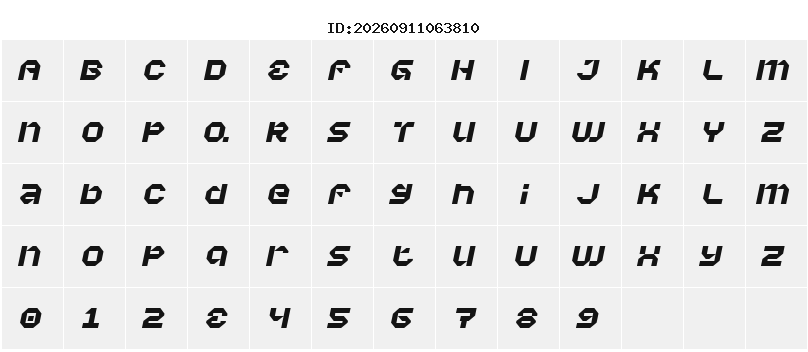
Vaporbyte Phat Preview
• Font Name: Vaporbyte Phat
• Font ID: dustBUST Vaporbyte Phat Italic
• Full Font Name: Vaporbyte Phat Italic
• PostScript Name: VaporbytePhatItalic
• Character Count: 193
About Vaporbyte Phat.ttf
Vaporbyte Phat.ttf is a modern, elegant sans-serif font designed for ultimate readability and visual harmony. Perfect for branding, headlines, web design, and print materials.